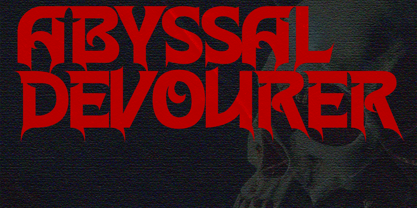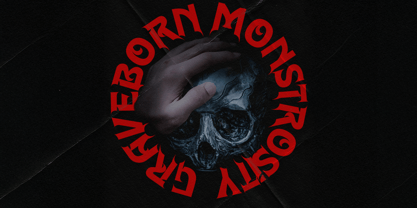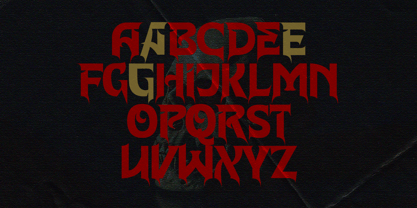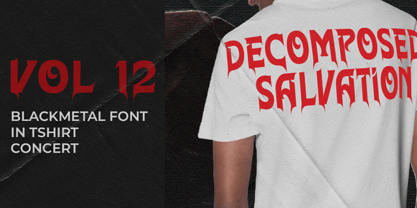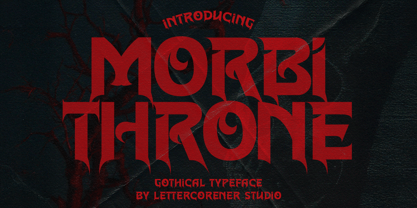
Morbithrone
The Morbithrone Font Family was designed by Muhammad Afif Ersya and published by Mevstory Studio. Morbithrone contains 1 styles. More about this family
Morbithrone is a dark, commanding display typeface forged at the crossroads of gothic blackletter and medieval fantasy. Every letter feels carved from shadow — bold, atmospheric, and unapologetically intense. Its defining feature is the signature drip detail along the baseline, giving each glyph a molten, flame-touched character. The forms are wide, heavy, and imposing, built as a condensed gothic block with subtly rounded edges that preserve legibility while maintaining a powerful, ominous presence. Uppercase and lowercase share a unified height and weight, creating a solid, uninterrupted wall of text that immediately captures attention. With 214 glyphs and full Latin Extended support, Morbithrone is designed for high-impact use at large sizes. Its consistent stroke and strong structure make it ideal for projects that demand a bold, dark identity. Perfect for game titles, metal album artwork, fantasy logotypes, horror branding, posters, and any design that lives on the darker side. No ligatures. No swashes. Morbithrone doesn’t decorate — it declares. Features: Uppercase & Lowercase (Unified Height) 214 Glyphs Latin Extended Support PUA Encoded